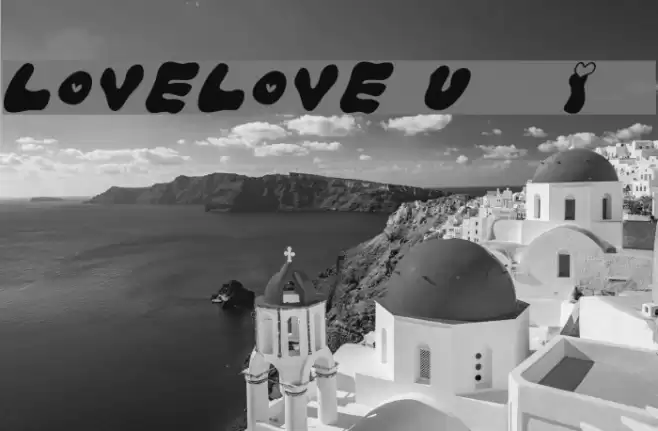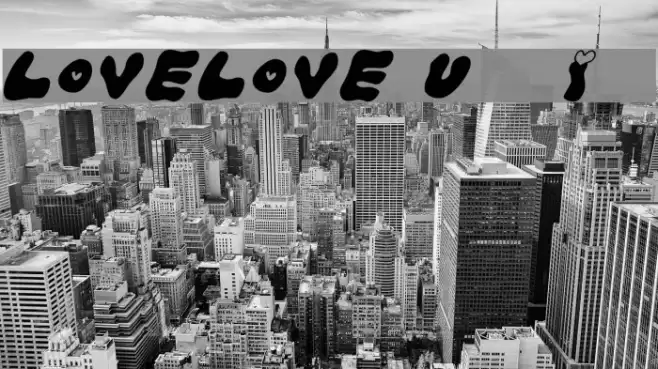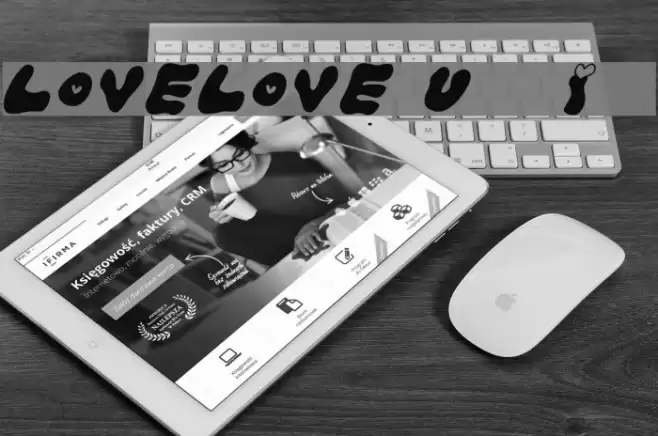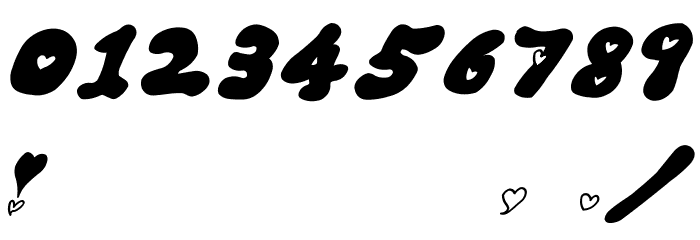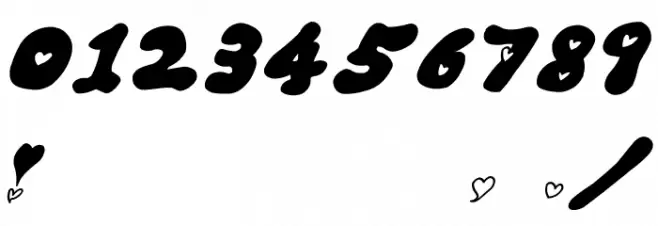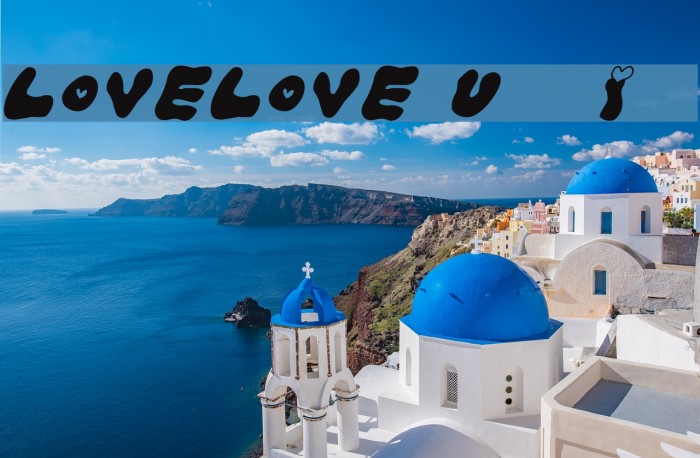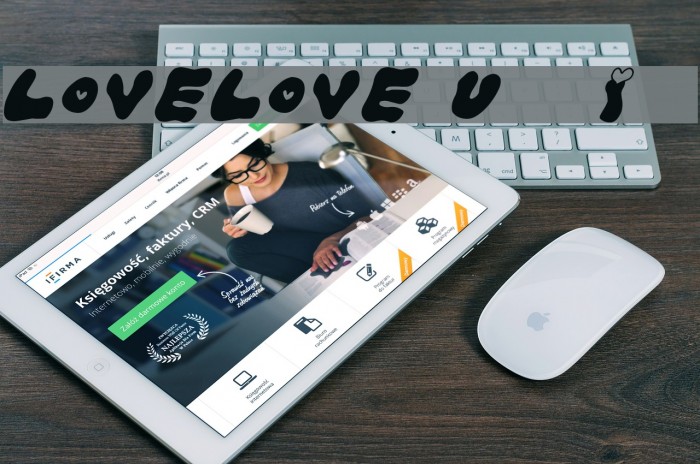
LOVELOVE_UfunIyan Font
LOVELOVE_UfunIyan Description
This playful and bold font features thick, rounded letters with a whimsical touch. Each character is infused with a sense of fun and creativity, making it ideal for projects that require a lively and engaging aesthetic. The heart-shaped embellishments on certain letters add a unique charm, enhancing its appeal for romantic or lighthearted themes. The numbers and special characters maintain the same bold and rounded style, ensuring consistency across all elements. This font is perfect for designs that aim to capture attention and convey a sense of joy and enthusiasm.
A bold, playful font with heart embellishments and rounded characters from Uncategorized fonts.
- Proposed Projects: Ideal for greeting cards, playful branding, children's books, and romantic event invitations.
- Overall Style: Playful, Whimsical
- Use Case: Headlines, Logos, Invitations